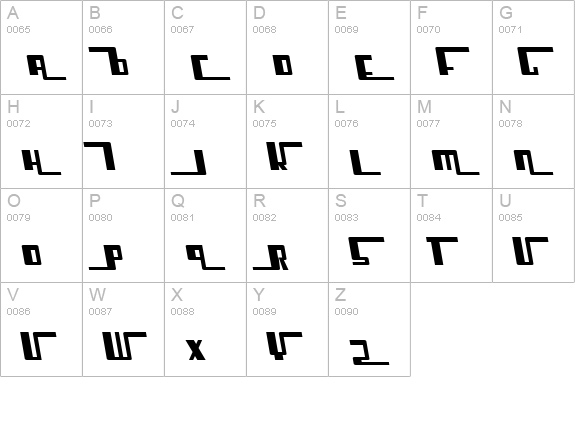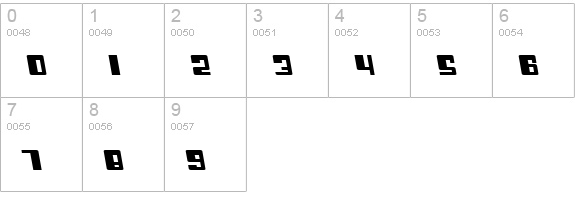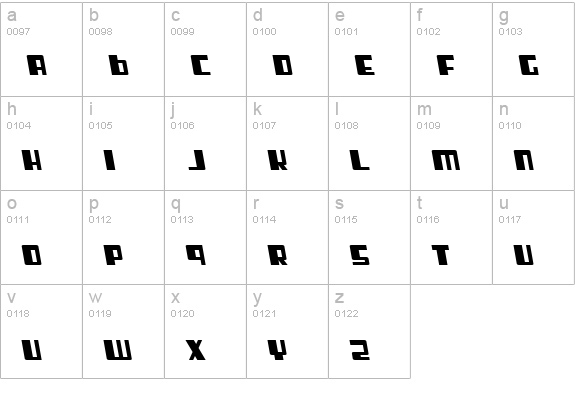
Cosmic Age Extended Italic is a distinctive, extended-width, italic variant in the Cosmic typeface family \xE2\x80\x94 well suited to design and typography projects.
Introducing Cosmic Age Extended Italic font - a sleek and modern typeface that exudes sophistication and elegance. With its elongated and stylish letterforms, this font is perfect for adding a touch of class to your design projects. Whether you're creating a logo, branding materials, or editorial designs, Cosmic Age Extended Italic font offers a unique flair that will make your work stand out. The best part? It's completely free to download at FontsMarket.com. So, go ahead and elevate your designs with this versatile and eye-catching font. Let Cosmic Age Extended Italic font take your creations to the next level and make a lasting impression on your audience. Download it now and start creating stunning designs today!